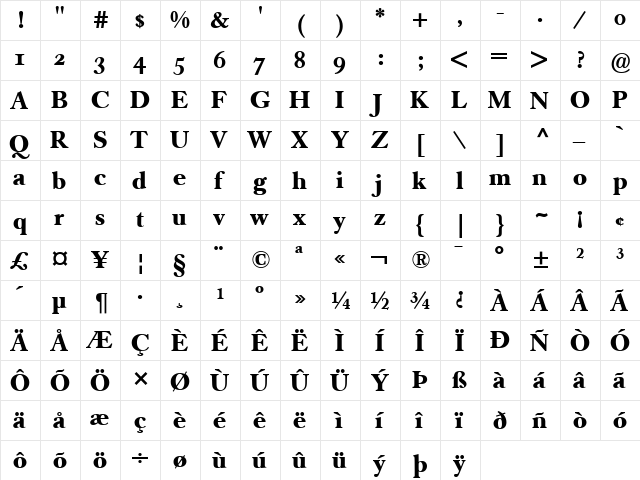
Caslon Book BE Regular
Design Context for Caslon Book BE Typeface
Caslon Book BE offers clean, dependable letterforms without strong stylistic allegiance, making it a practical choice for designers who need flexibility.